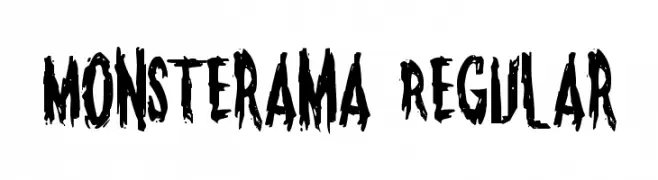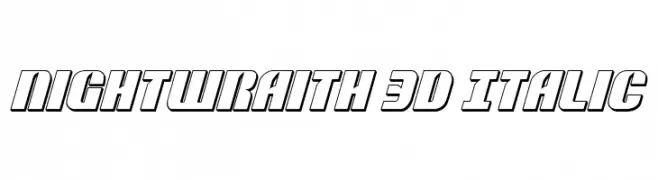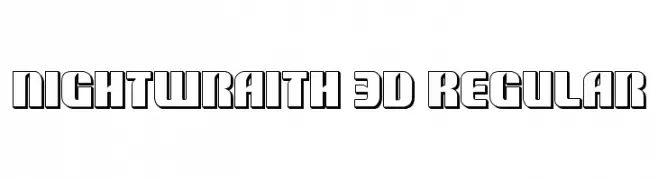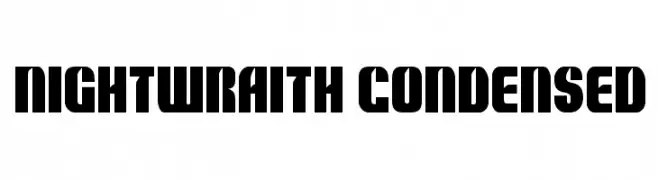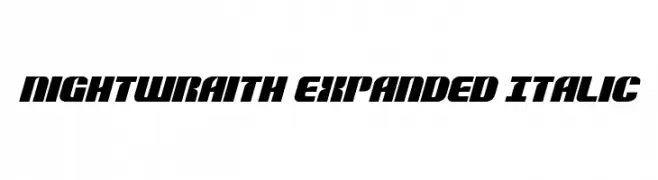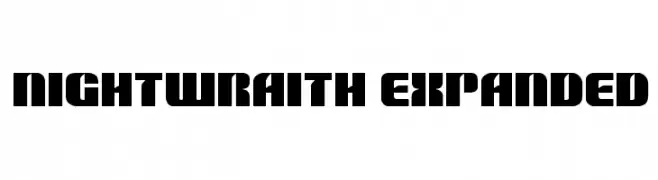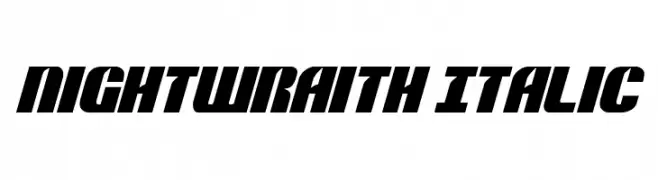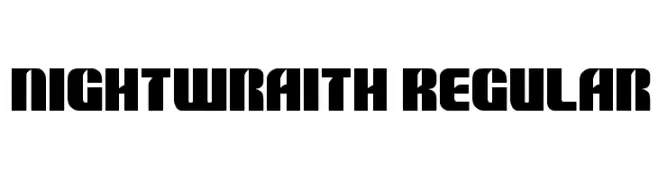
A bold, jagged font with a horror-inspired, dripping effect.
A bold, 3D italic font with outlined characters and a dynamic style.
A bold, 3D geometric font with a strong, impactful presence.
A bold, condensed font with a modern, geometric style.
A bold, italic, and condensed font with a dynamic and energetic style.
A bold, expanded font with a geometric and impactful style.
A bold, expanded, and italic font with high contrast and a modern, dynamic style.
A bold, italicized font with a dynamic and modern style.
A bold, angular font with a dynamic, italicized style.
A bold, geometric font with a strong, industrial feel.